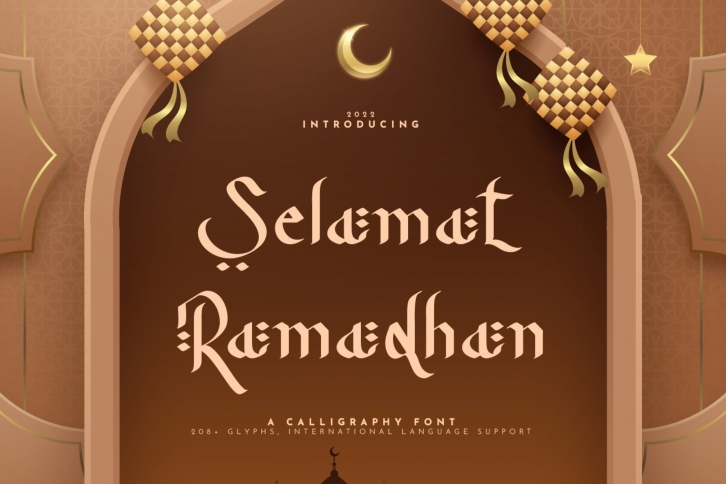
Selamat Ramadhan Calligraphy
Introducing a fresh and new handwritten font, “Selamat Ramadhan”. Made in Indonesia, “Selamat Ramadhan” is inspired by the biggest month for Moslems, Ramadhan Month. This font was designed especially for Ramadhan project purposes, including posters, social media, and cards.
“Selamat Ramadhan” features irresistible characters which make this font unique because it looks like the common Arabian alphabet or is written in Arabic style. Its special letters and dots give this font Arabian and Middle Eastern vibes. Your design will look more special when using “Selamat Ramadhan.”